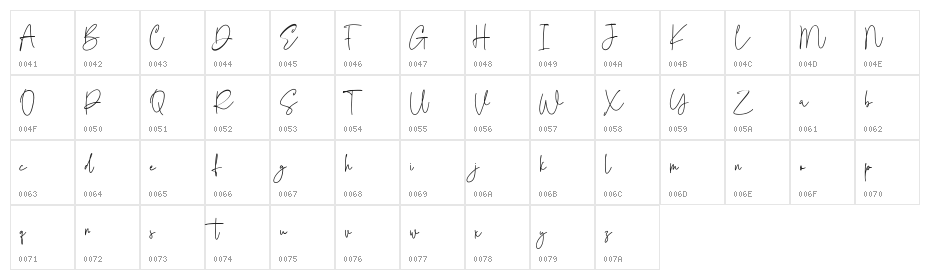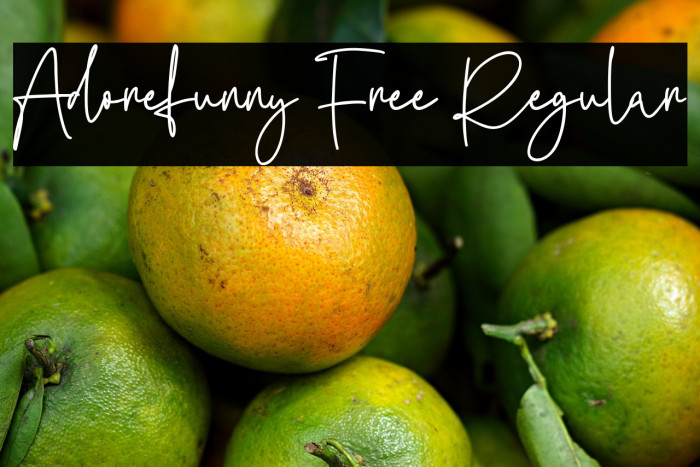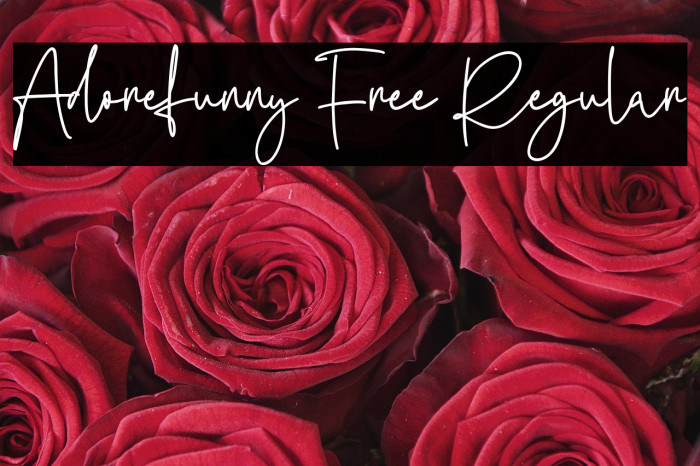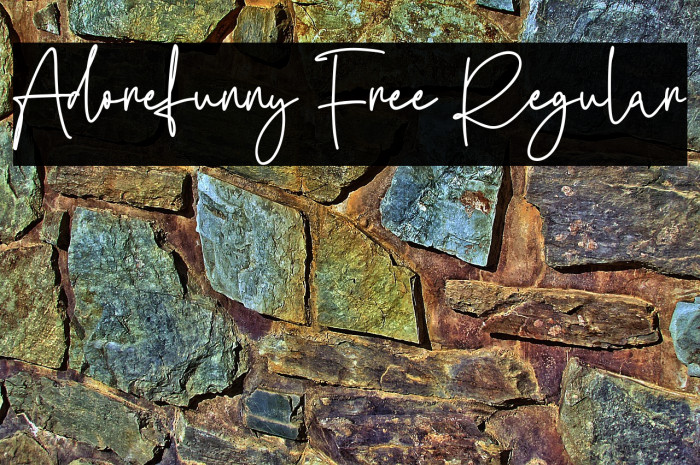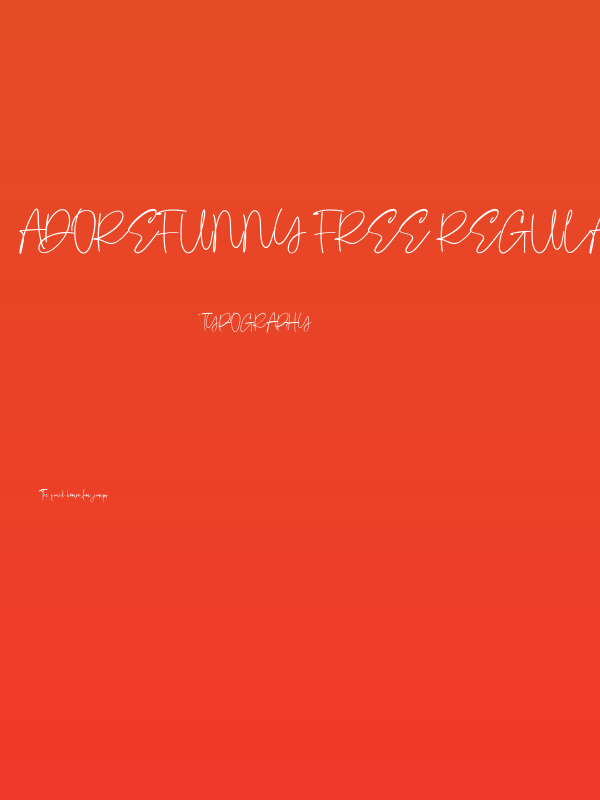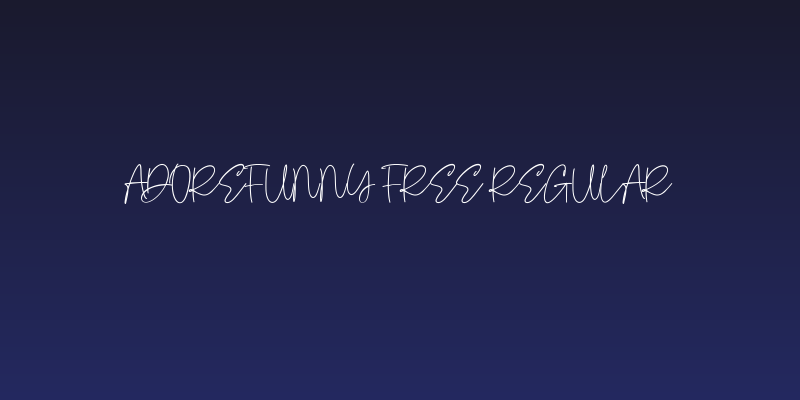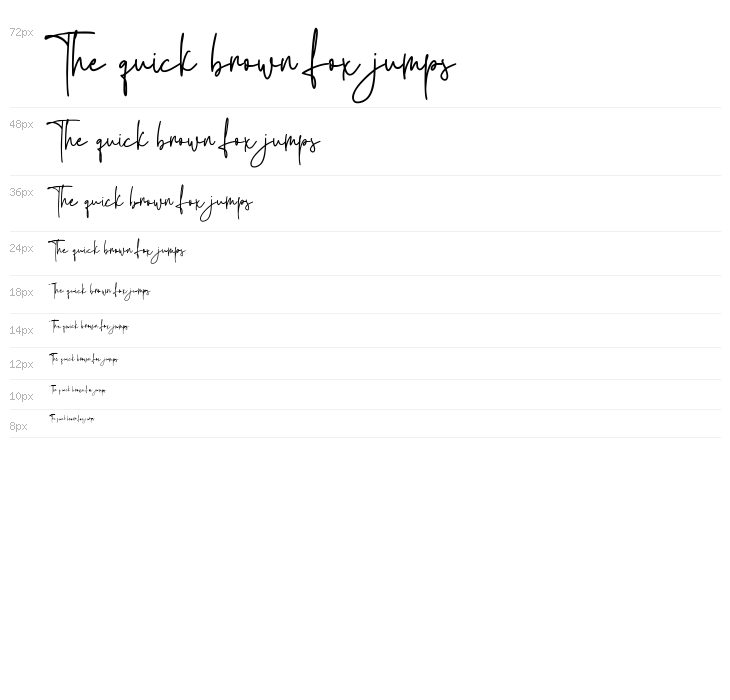
Adorefunny Free Regular Font
Adorefunny Free Regular Description
A playful and whimsical handwritten font with a casual and flowing style, featuring irregular strokes and a personal touch.
| Overall Style | Casual and whimsical |
| Use Case | Logos, Invitations, Personal projects |
| Proposed Projects | Greeting cards, invitations, personal branding. |